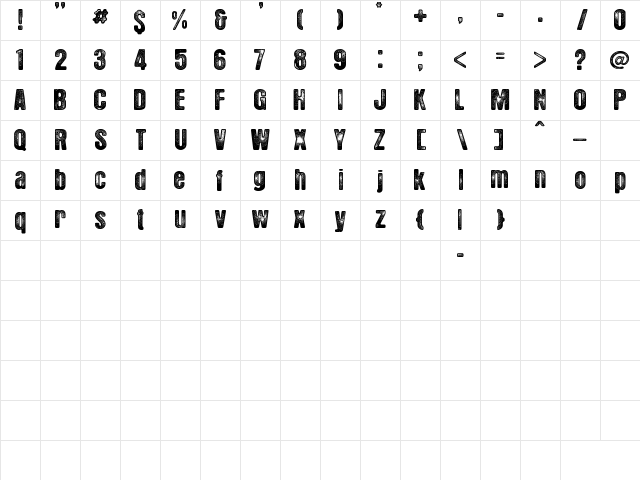
Hotel Coral Essex Regular
Design Context for Hotel Coral Essex
Hotel Coral Essex is a composed and adaptable typeface that performs quietly and consistently across a wide range of design contexts.
Pro Tip: Use Hotel Coral Essex in both headline and body roles to test its range before committing to a single application.